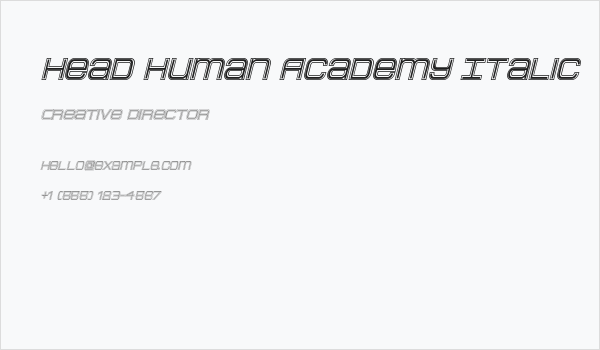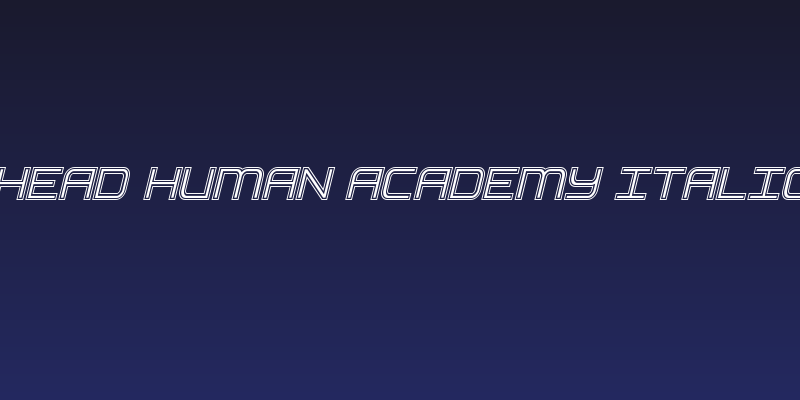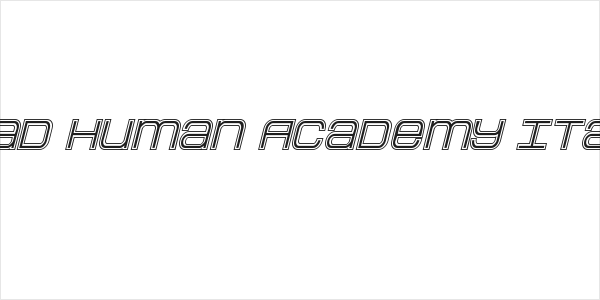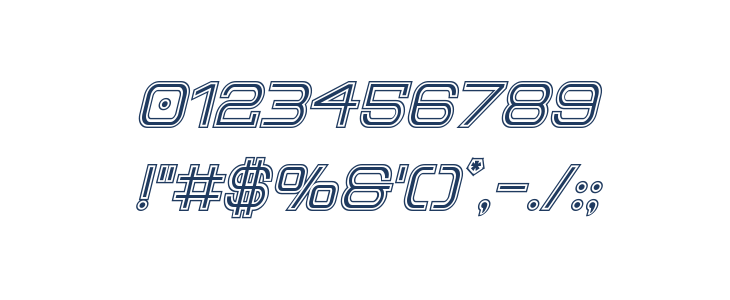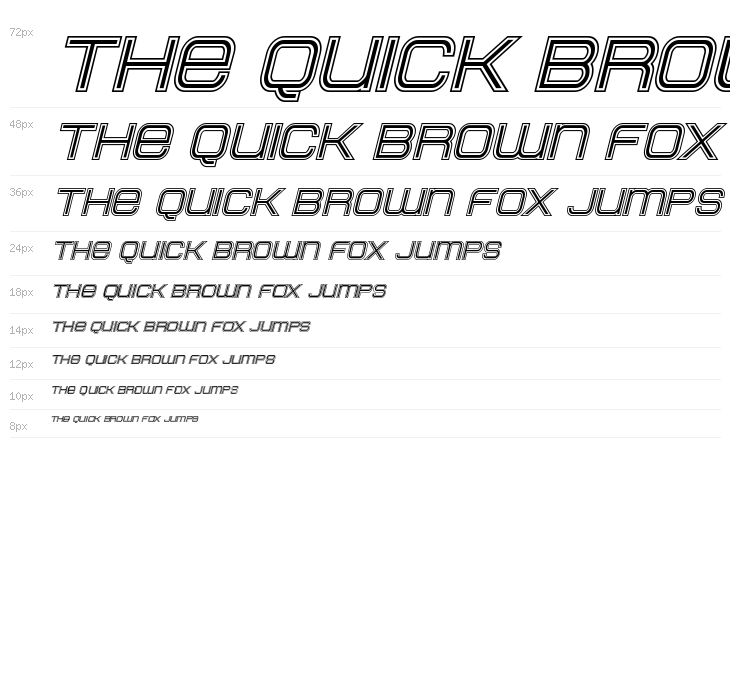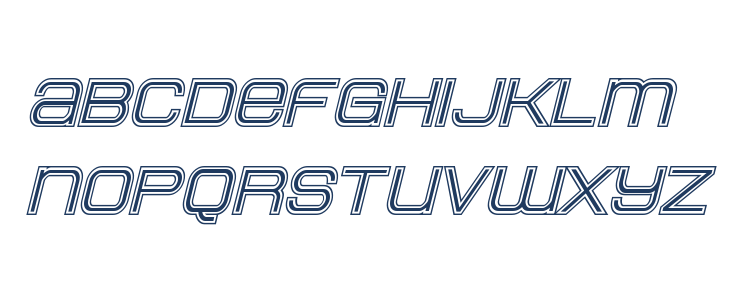
Head Human Academy Italic Font
Head Human Academy Italic Description
This font features a bold, geometric design with a distinct italic slant, giving it a dynamic and modern appearance. The characters are outlined with a double line, creating a sense of depth and dimension. The uppercase and lowercase letters maintain a consistent style, with sharp angles and clean lines. Numbers and special characters are designed to match the overall aesthetic, ensuring uniformity across all elements. The font's unique structure makes it stand out, suitable for projects that require a futuristic or tech-inspired look.
| Proposed Projects | Ideal for tech branding, futuristic posters, video game titles, and digital media. |